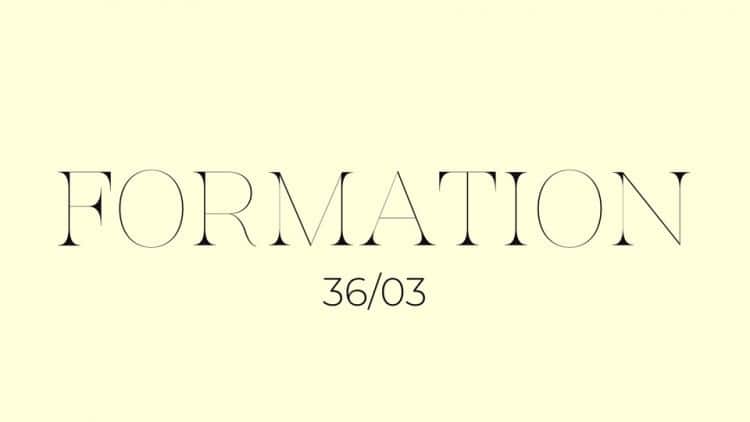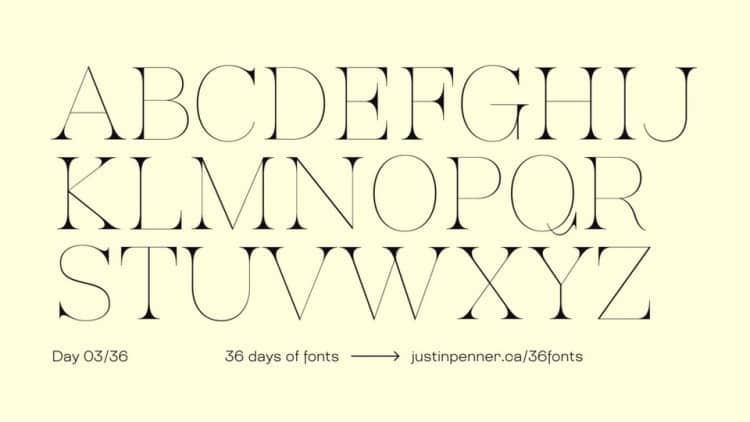
Formation Serif Font is a classical style serif typeface that sets the mood and evokes emotions before you read the text. Made from font designer named Justin Penner. The font is perfectly suitable for creating elegant, chic, lifestyle design such as logos, title, and magazine, and more.